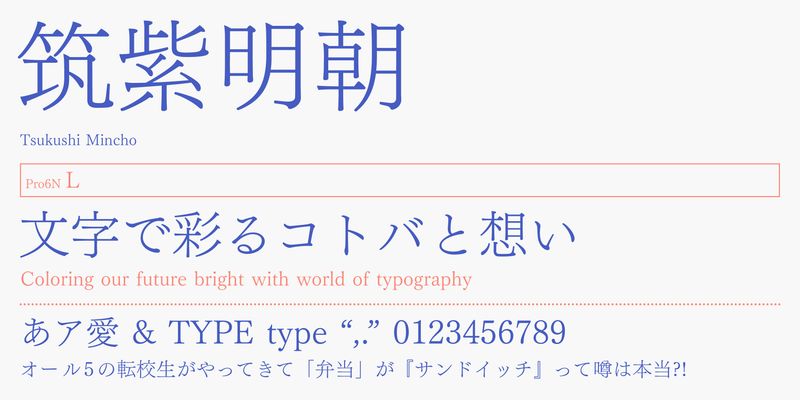
FOT-TsukuMin Pr6N Font Free Download is a classic and highly legible Mincho-style typeface, perfect for professional layouts, formal documents, and high-end editorial design. With its sharp serifs, clean stroke endings, and refined balance, this font exudes a sense of tradition and authority while maintaining excellent readability in both Japanese and Latin scripts.